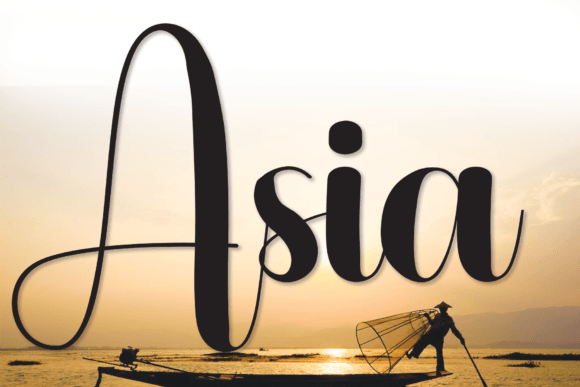
The Enchanting Asia Font: A Designer’s Delight
I still remember the project that led me to discover the captivating Asia font. I was working on a branding campaign for a luxury boutique hotel, and my client specifically requested a font that exuded elegance and sophistication. After hours of scouring through font libraries, I stumbled upon Asia, and it instantly stole my heart. Its fluid curves and delicate strokes seemed to dance on the page, radiating a timeless charm that perfectly captured the essence of the hotel’s brand.
As I dove deeper into the world of Asia font, I fell more and more in love with its intricacies. Here are a few things that make it stand out:
- ✨ Exquisite details: Each letter is carefully crafted with a sense of grace and elegance, making it perfect for high-end branding projects.
- ✅ Elegant strokes: The font’s delicate strokes add a touch of sophistication to any design.
- ✅ Versatility: Asia font works beautifully in both digital and print formats.
However, no font is perfect, and Asia has a few minor quirks:
- 🤔 Limited character set: Asia font has a limited character set, which may not be suitable for projects that require a wide range of special characters.
- ⚠️ Kerning issues: Some users have reported kerning issues when using Asia font in certain design software.
The Designer Inspiration Behind Asia Font
According to its designer, Asia font was inspired by traditional calligraphy and the beauty of Asian typography. The designer aimed to create a font that would evoke a sense of timeless elegance and sophistication, perfect for high-end branding projects.
| Font Name | Asia Font |
| What is the best use case for Asia font? | Asia font is perfect for high-end branding projects, luxury packaging, and elegant editorial designs. |
| Is Asia font suitable for digital use? | Yes, Asia font works beautifully in digital formats, including websites, social media, and email marketing campaigns. |
| Is Asia font available in different weights and styles? | Asia font is available in a range of weights and styles, making it versatile for various design applications. |